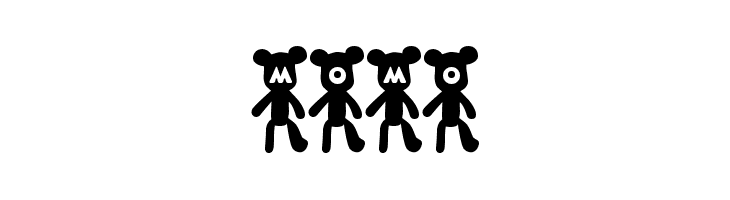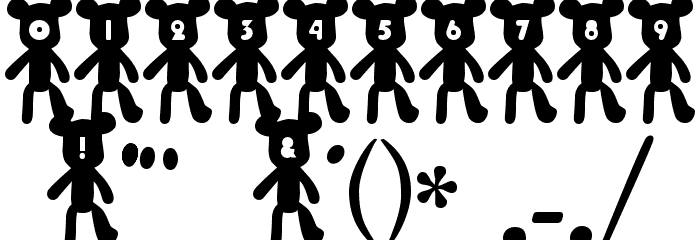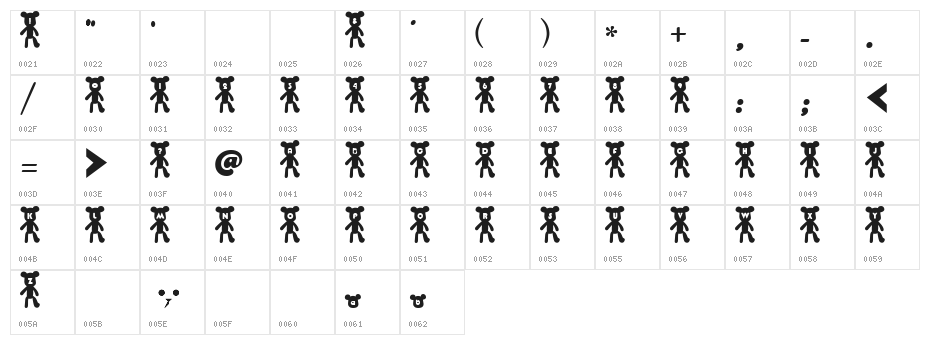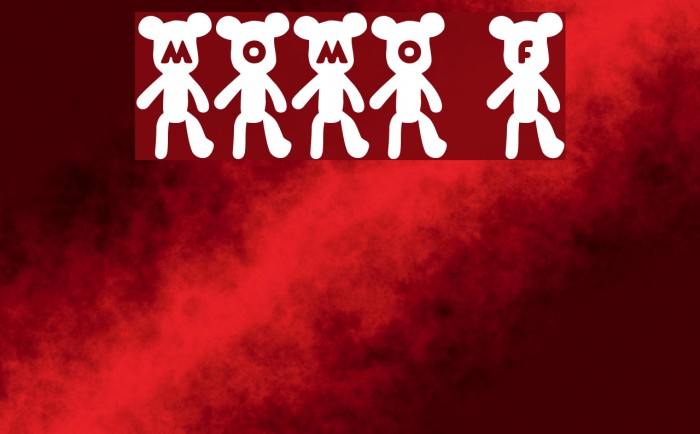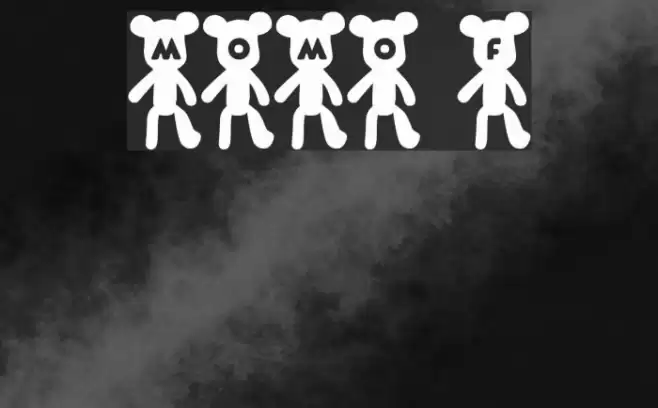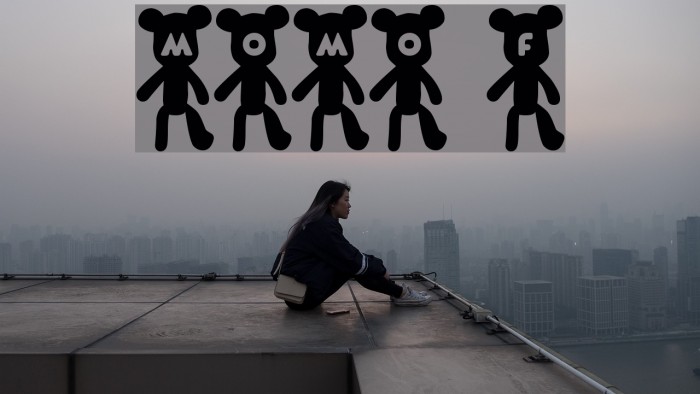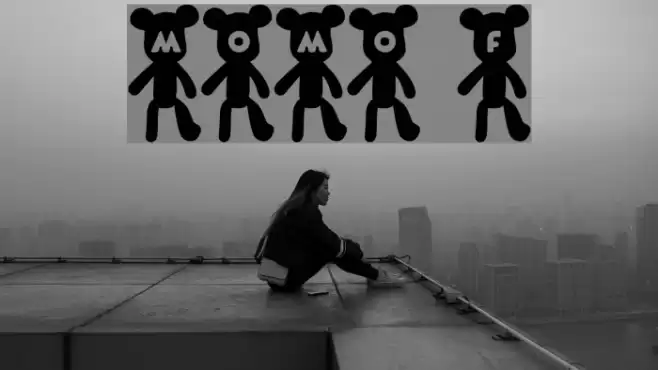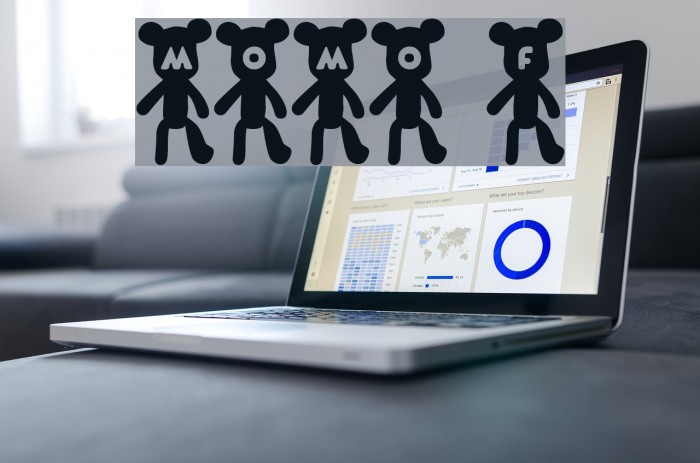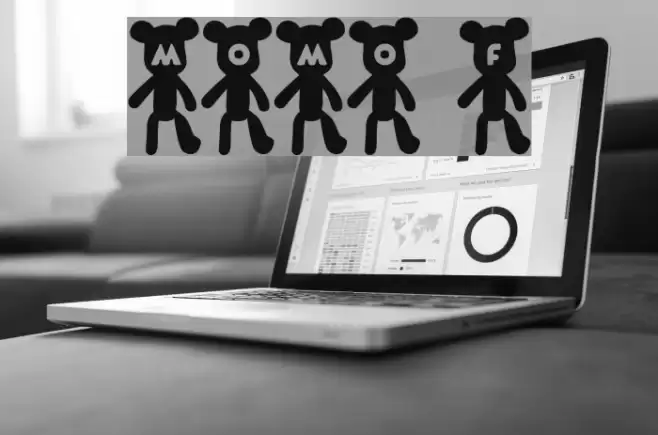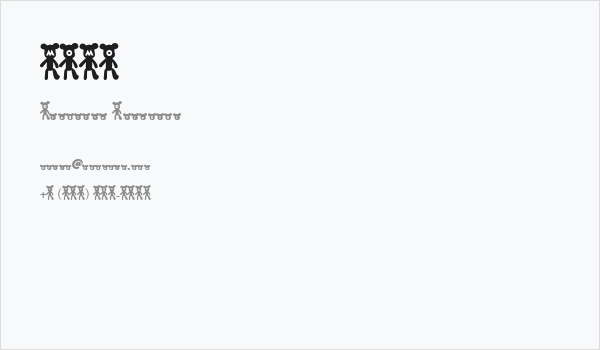
MOMO Font
MOMO Description
This playful and whimsical font features characters designed as teddy bears, each letter and number taking the form of a bear silhouette. The unique design incorporates a consistent bear shape with the letter or number integrated into the bear's body, creating a cohesive and charming appearance. The font is highly decorative, making it ideal for projects that require a fun and engaging visual element. The consistent bear motif across all characters ensures a uniform look, while the bold and solid shapes provide excellent visibility and impact.
| Proposed Projects | Ideal for children's books, playful branding, toy packaging, and themed party invitations. |